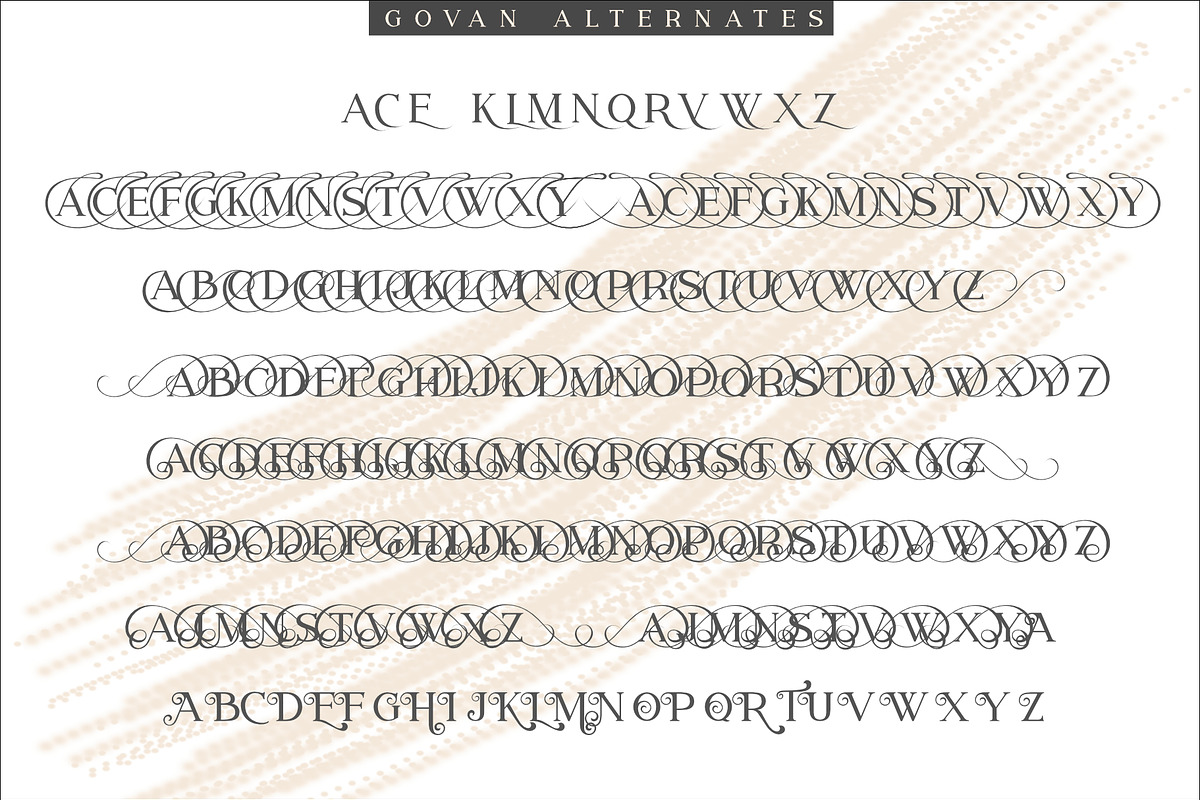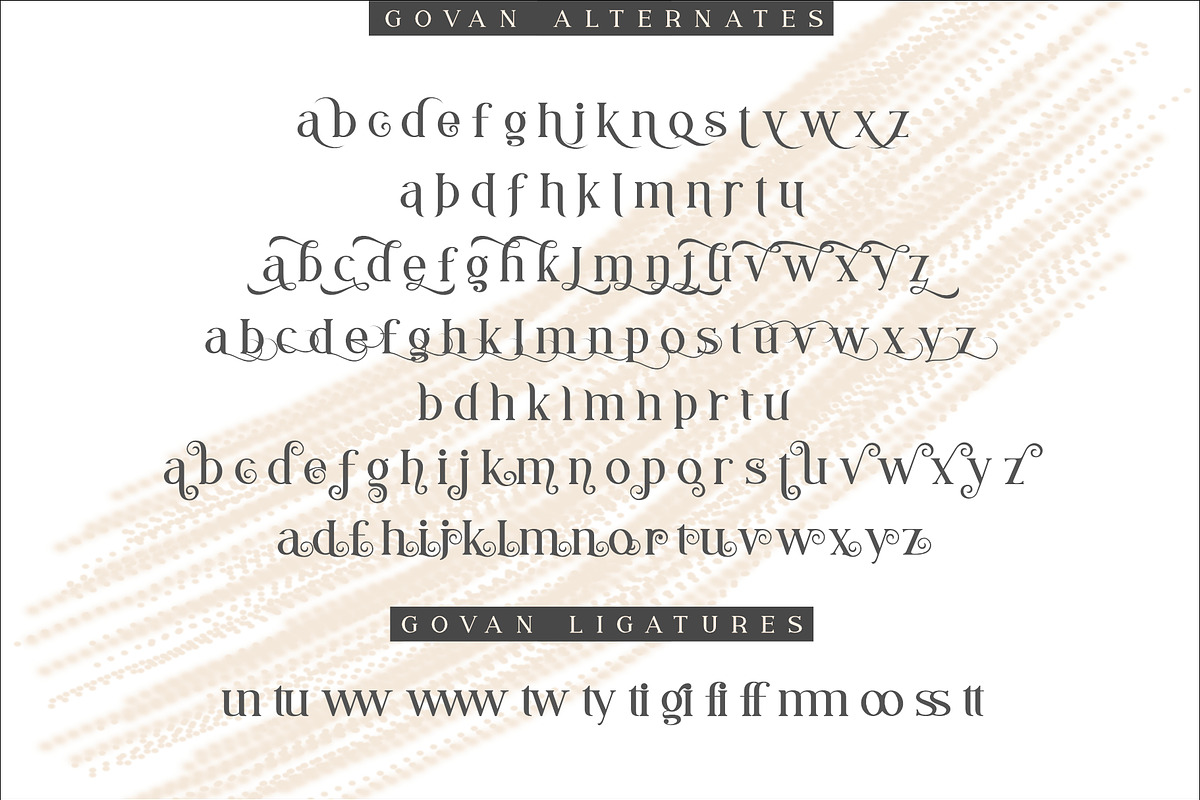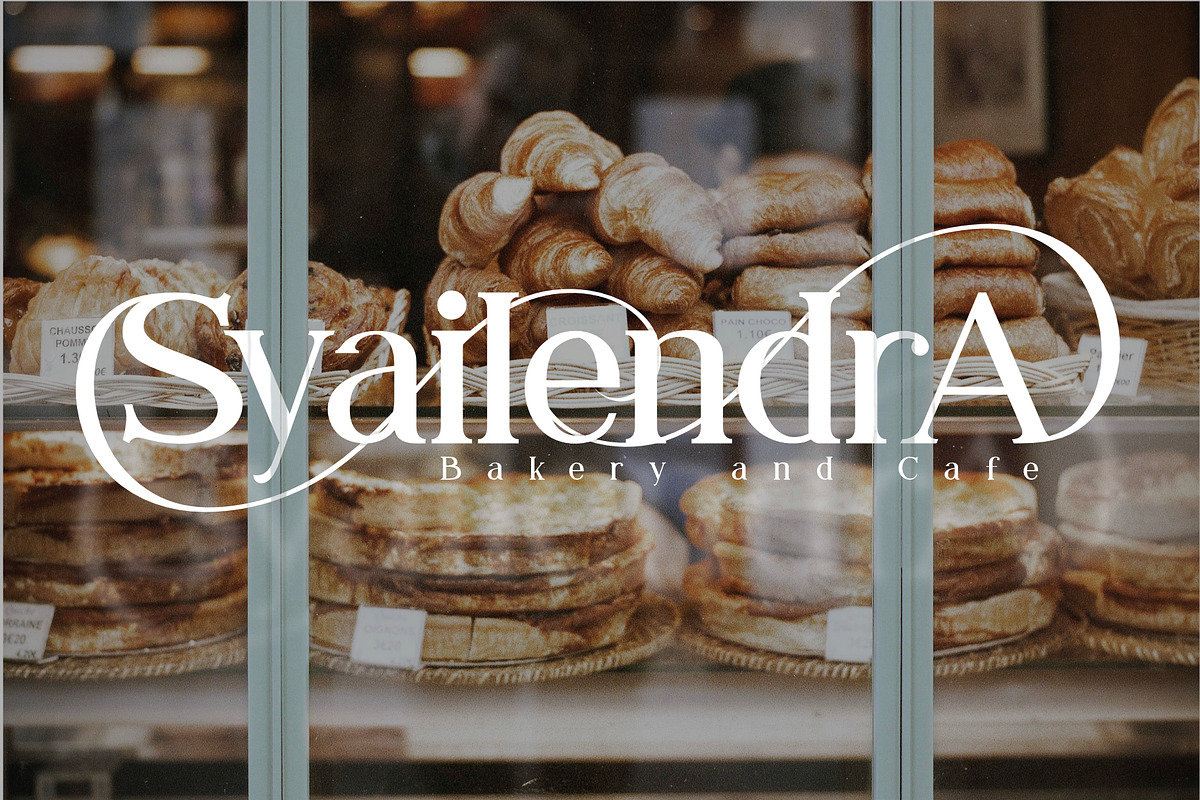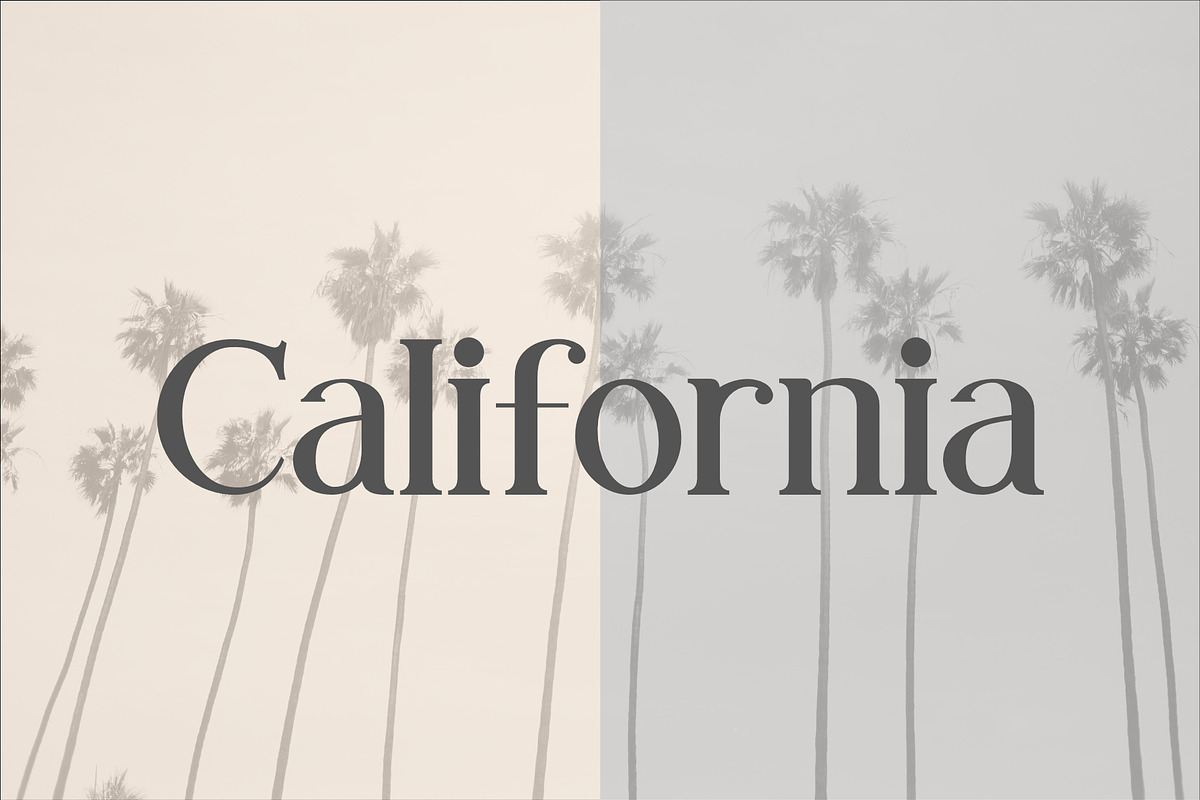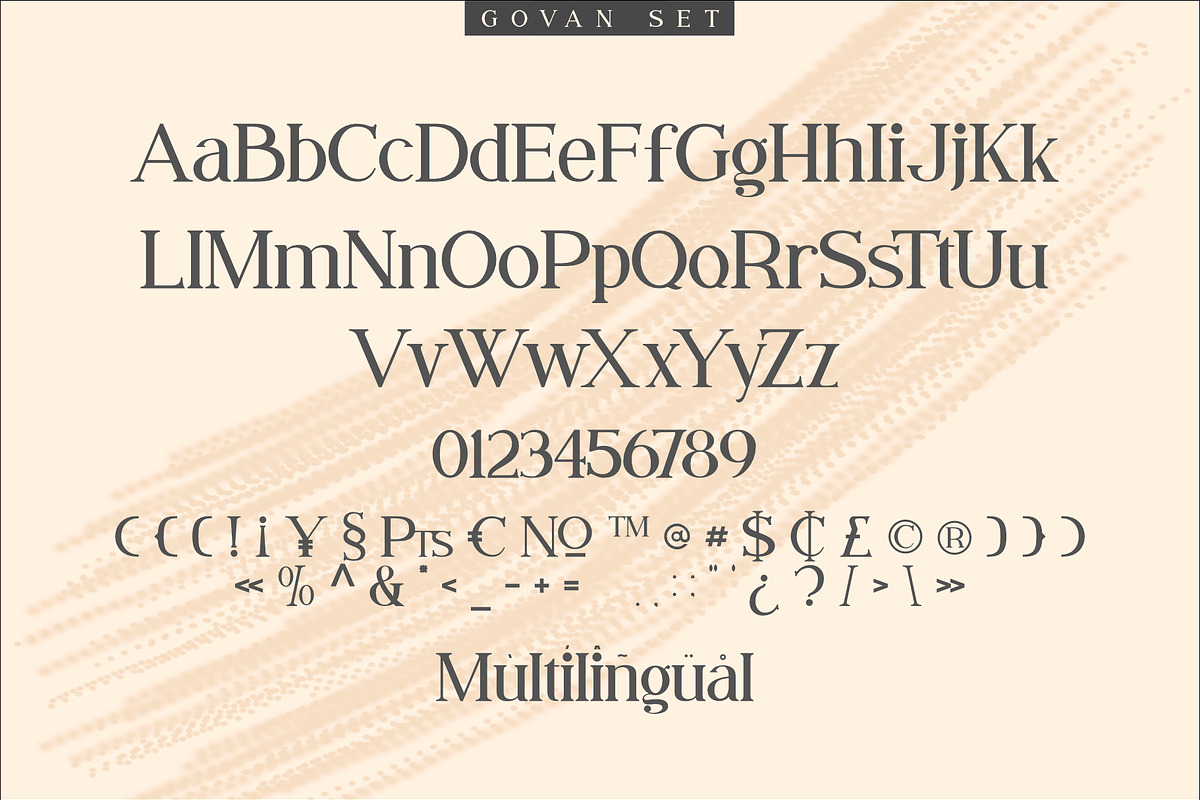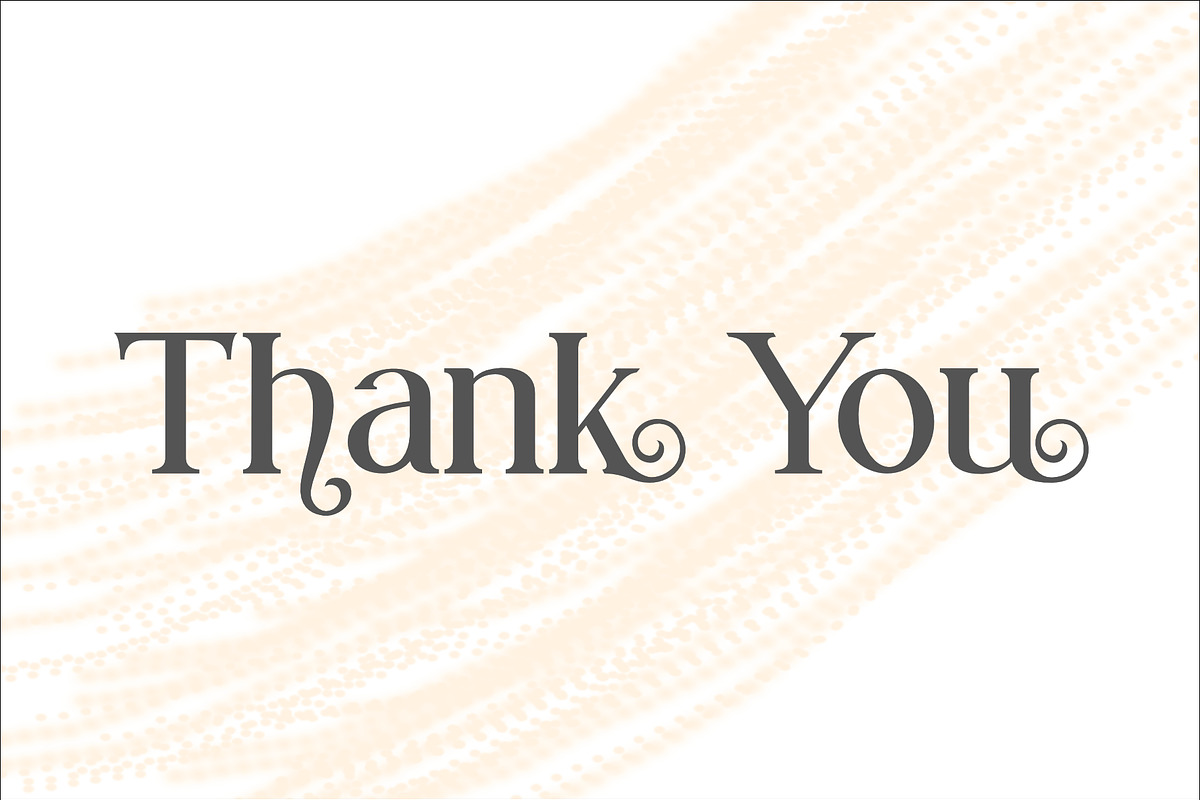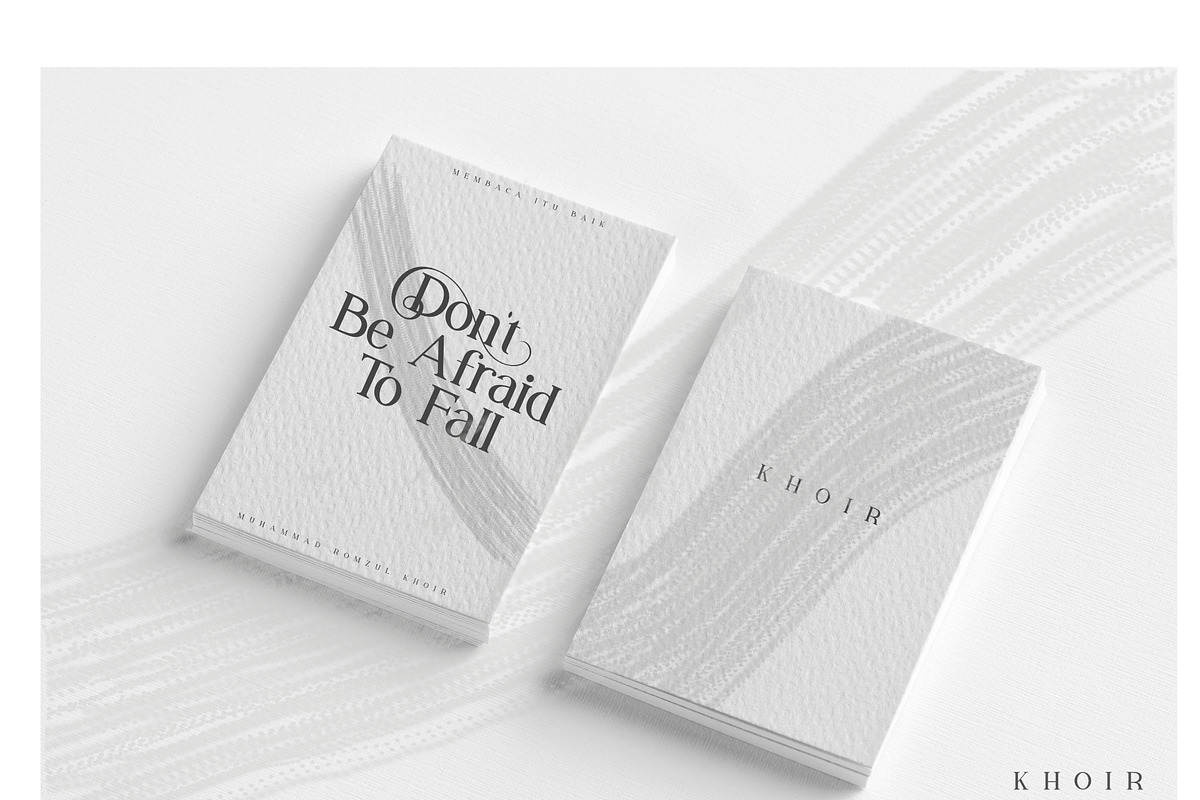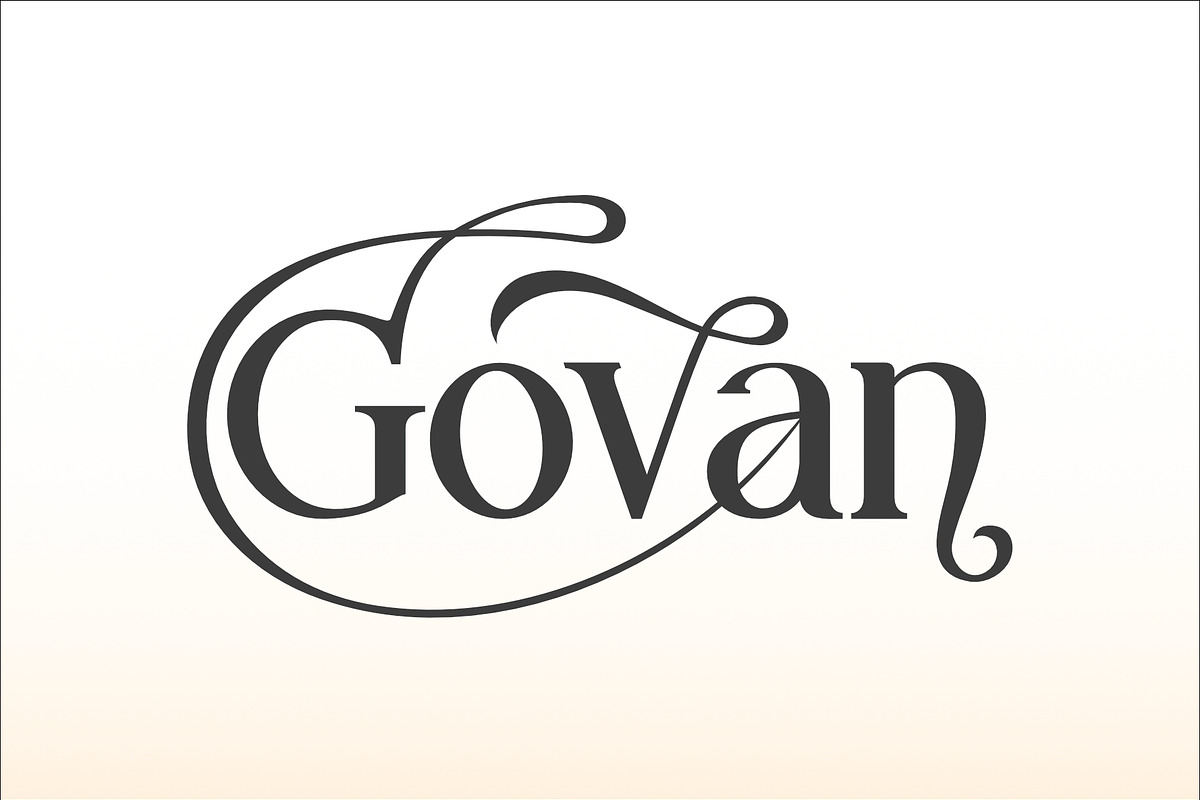
Syailendra - Modern Serif With Tail
Syailendra is a serif font that combines classic style fonts moderated with a touch of minimalist design, produces beautiful and elegant fonts, and is supported by ligatures and 300 more font substitutes with all characters brought in will make you explore your design style more easily, with various alternative styles that allow for logos, posters, covers, main packaging, t-shirts, business cards, wedding cards and more, so what are you waiting for?
- Uppercase Characters
- Lowercase Characters
- Foreign Languages Support: ÀÁÂÃÄÅÆÇÈÉÊËÌÍÎÏÐÑÒÓÔÕÖØÙÚÛÜÝßàáâãäåæçèéêëìíîïñòóôõöøùúûüýÿ